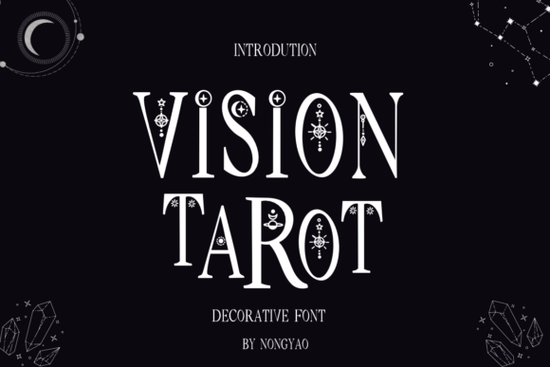
If you design greeting cards, journals, or social media graphics and you are after a lettering style that feels handwritten and slightly mysterious, Vision Tarot Font fits the bill. It sits in the decorative category, with flowing strokes, delicate curls, and a touch of bohemian charm that works on everything from diary entries to T‑shirt designs. The font does not feel overly formal, which makes it a friendly option for crafters and small business owners who want something personal without being juvenile.
What drawing style does Vision Tarot Font bring to a project?
The letterforms in Vision Tarot feel like ink drawn by hand with a flexible nib or a fine brush pen. The serifs are soft, the ascenders loop gracefully, and many characters come with tiny ornamental swashes. That handcrafted quality gives the font a tarot‑card aesthetic perfect if you are tapping into mystical, nature‑inspired, or witchy branding trends. It reads clearly at moderate sizes, so it works well for headings, short quotes, and product titles while keeping the cozy, narrative mood.
When you check the character map, you’ll see it includes a full set of uppercase letters, numerals, punctuation, and a handful of stylistic alternates. These extras let you tweak the look without having to switch typefaces, which is handy for DIY stationery or multiple mockups in a single afternoon.
Which projects make the most of Vision Tarot Font?
Because the font stays readable while leaning heavily into decoration, it shines on shorter blocks of text. Designers and hobbyists often reach for it when creating:
- Greeting cards and postcards with nature or mysticism themes
- Social media quote graphics for Instagram, Pinterest and Etsy
- Bullet journal headers and diary title pages
- Mug and tote bag prints for print‑on‑demand shops
- Event signage for boho weddings, wellness fairs or book clubs
- Personal branding elements like business cards and email signatures
Even though the font works on many surfaces, avoid setting long paragraphs in Vision Tarot. Its decorative character makes large bodies of text harder to scan. Stick to headings, pull quotes, or single‑line labels for best results.
How to pair Vision Tarot Font with other typefaces
Pairing a decorative font can be tricky. Vision Tarot looks best when accompanied by simple, neutral fonts that let its personality stand out. A clean sans‑serif such as Open Sans, Montserrat, or Lato handles body copy without competing. If you are creating a romantic or boho set, you can combine it with another soft typeface for contrast. The whimsical wedding‑inspired lettering from the same shop makes a lovely companion for cosy invitation suites, where the doodle feel of Lovebirds Wedding Doodle Font adds a sweet second voice. For editorial layouts, limit yourself to two fonts in total: one for headlines (Vision Tarot) and one for body text. That keeps the finished design professional without looking cluttered.
Can Vision Tarot Font handle different surface mockups and sizes?
On smooth surfaces like cardstock, vinyl, or sublimation coasters, the thin lines and swashes stay crisp above 12pt. For embroidered patches or textured paper, bumping the size up to 18pt or larger preserves the delicate details. The font holds up well on dark backgrounds, too, because the airy letterforms leave plenty of breathing room. If you are planning to use it on small product labels, test a print sample first. Some of the thinner cross‑strokes may disappear at very small sizes on absorbent materials.
Get started with Vision Tarot Font in your next design
Whether you are making a last‑minute birthday card, a batch of affirmation mugs for your Etsy store, or a new Instagram story template, this font adds a layer of warmth that feels intentional rather than over‑designed. Here is a quick checklist to keep your workflow smooth:
- Pick one short message. A single line or a three‑word phrase lets the font’s character shine.
- Choose a simple background. Solid colours and subtle watercolour textures let the decorative strokes pop.
- Pair with a readable sans‑serif. Reserve Vision Tarot for the focal text and set the rest in a clean font.
- Test at actual print size. Print a sample on the final material to make sure the thin serifs render cleanly.
Once you feel comfortable with the font, try it on a few different surface mockups in your design software. That small step shows you exactly how it will behave on mugs, totes, and paper products before you hit “print.”